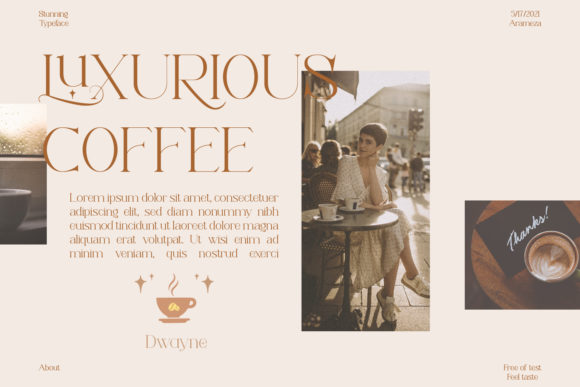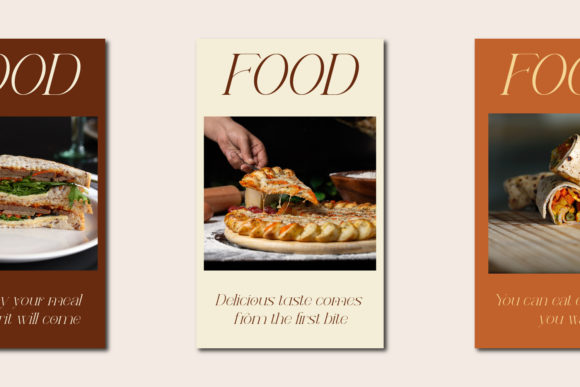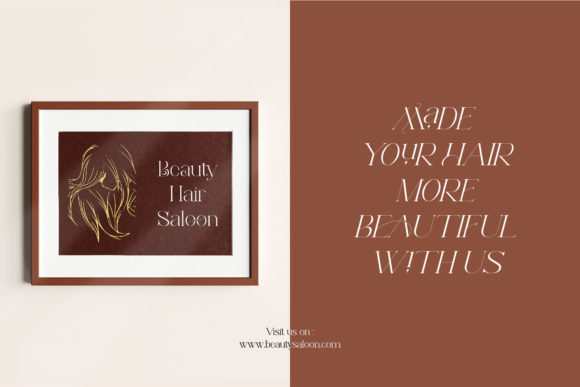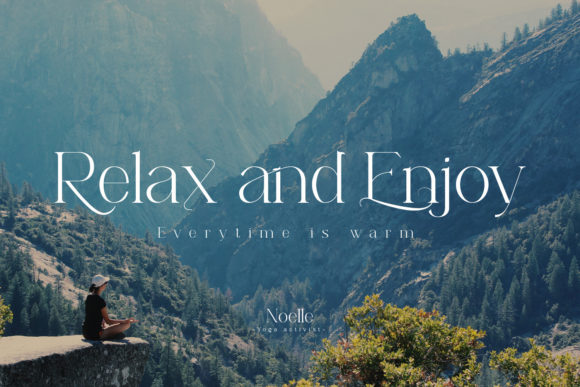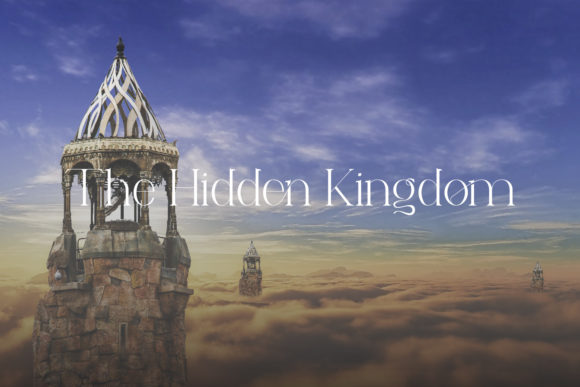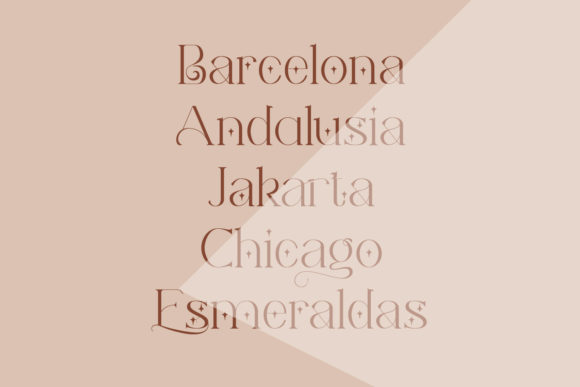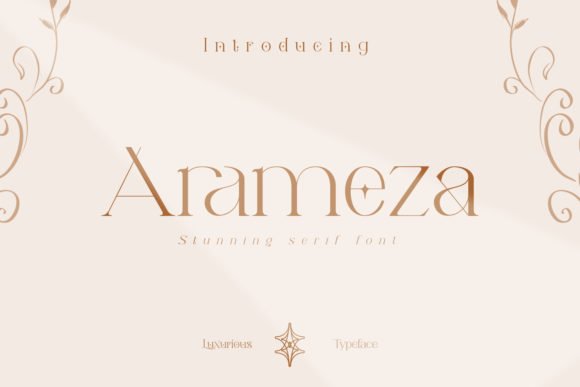
Arameza Font: Elevate Your Designs with Elegance
Remember the moment when you finally nailed the perfect combination of typography and color for your project? The feeling of accomplishment and excitement is indescribable. As designers, we’re always on the lookout for that one element that can elevate our creations to the next level. That’s where the Arameza Font comes in – an exquisite, thin lettered and delicate serif font that adds a touch of sophistication to any design.
Arameza Font is the perfect addition to your favorite formal or informal designs, bringing them to life with its elegant and refined aesthetic. With its PUA encoding, accessing all the glyphs and swashes is a breeze, giving you the freedom to unleash your creativity. Whether you’re working on a high-end branding project or a personal blog, Arameza Font is sure to make a lasting impression.
Arameza Font Key Features
- Unique Character Set: The Arameza Font features a unique character set, including a wide range of punctuation marks, ligatures, and special characters, adding to its versatility.
- High-Quality Typography: The Arameza Font is designed to deliver high-quality typography, with precise letterforms, even spacing, and a harmonious line height, ensuring that text is easy to read and visually appealing.
Arameza Font Review
Overall, I think the Arameza font has a unique charm to it. The ✨ clean and minimalist design makes it perfect for various digital applications. The font family is quite extensive, with multiple weights and styles available. This versatility makes it easy to adapt to different design requirements.
One of the standout features of Arameza is its ✨ excellent legibility. The font is highly readable even at smaller sizes, making it ideal for body text, headings, and other long-form content. The font’s ✨ modern aesthetic also gives it a fresh and contemporary feel, which can help to elevate any design project.
While the Arameza font has many strengths, there are a few areas where it falls short:
- ⚠️ Lack of distinctiveness: At times, the font can feel a bit generic and lacking in personality, which may not be ideal for projects where a more unique look is desired.
- ⚠️ Not ideal for creative or artistic projects: The font’s minimalist design may not be the best fit for projects that require a more expressive or artistic tone.
Overall, the Arameza font is a solid choice for a wide range of design projects. While it may not excel in every area, its clean design and excellent legibility make it a great option for many applications.
Arameza Font is ideal for:
Creating elegant and sophisticated designs.
Adding a touch of sophistication to business presentations.
Designing luxury branding materials.